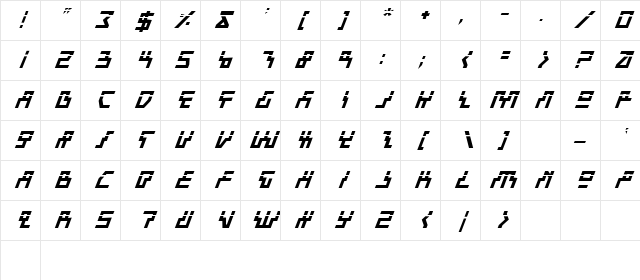
Complete Beam Rider Bold Italic Laser glyph index. Displaying only characters natively supported by Beam Rider Bold Italic Laser font.
Beam Rider is a composed and adaptable typeface that performs quietly and consistently across a wide range of design contexts. The slanted form adds forward momentum and visual energy. Its bold stroke weight gives it real presence on the page.